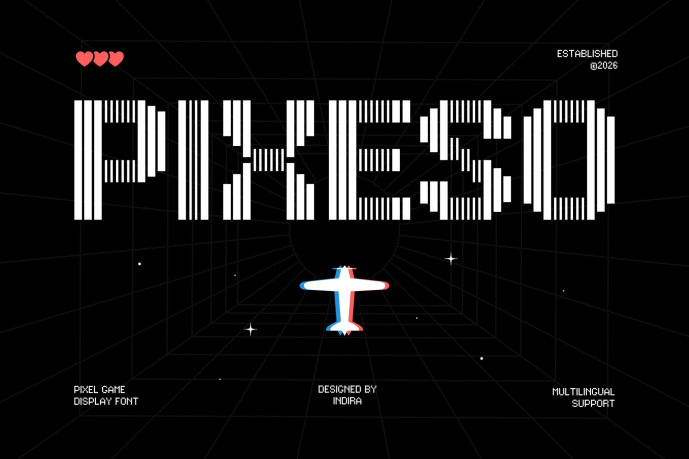
Pixeso Pixel Font
Pixeso Pixel Font is a futuristic pixel font that blends retro arcade aesthetics with a sleek digital rhythm. Built from vertical bar-style bitmap structures, this display font creates a unique visual motion that feels alive—perfect for game titles, sci-fi interfaces, and immersive gaming environments. Its bold yet structured form gives a strong presence, making every word feel like part of a high-tech game universe.
Designed for creators who want to push beyond typical pixel fonts, Pixeso delivers a fresh and modern gaming identity. Whether you’re building UI systems, streaming overlays, coding visuals, or tech-driven branding, this font adds a dynamic layer of depth and movement. With its distinctive style and futuristic arcade energy, Pixeso helps you craft designs that feel fast, engaging, and ready for the next level.